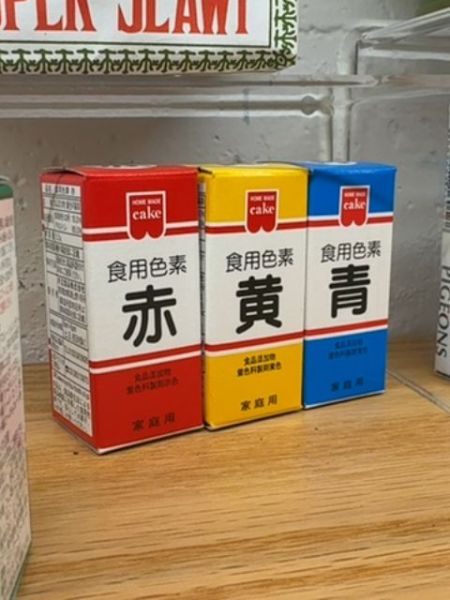
Cake Food Coloring
A set of food coloring products used in baking to add vibrant colors to cakes, pastries, and other confections.
The typography is characterized by bold, sans-serif Japanese characters that emphasize clarity and readability. The product name is presented in a Western-style serif font within a colored block, providing a striking international appeal. The combination of font styles balances traditional and modern design aesthetics.
The packaging consists of small, rectangular boxes available in bright red, yellow, and blue colors. Each box has a stark white panel with bold black Japanese text, topped with a contrasting colored header indicating the product type. The design is simple and functional, aiming for easy recognition and use.